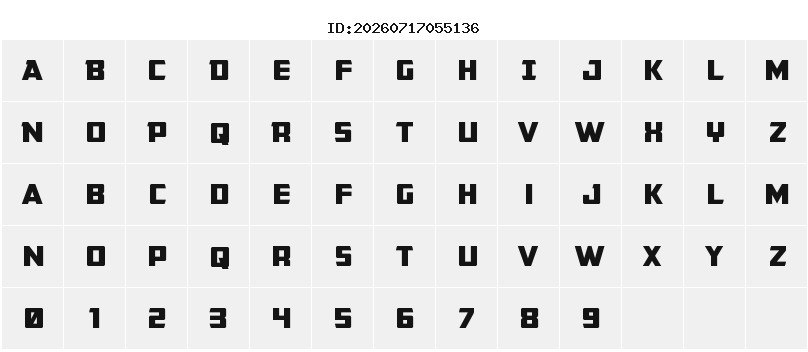
• Font Name: Buchanan Expanded
• Font Style: Expanded
About Buchanan Expanded.ttf
Buchanan Expanded.ttf is a modern, elegant sans-serif font designed for ultimate readability and visual harmony. Perfect for branding, headlines, web design, and print materials.